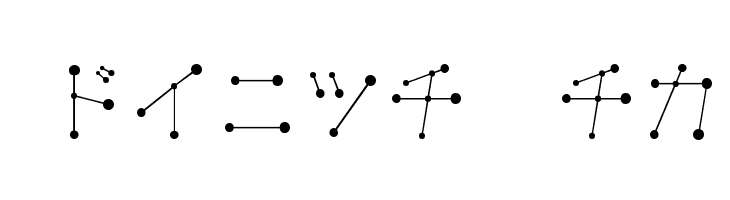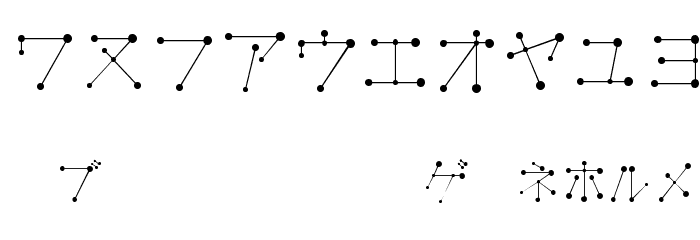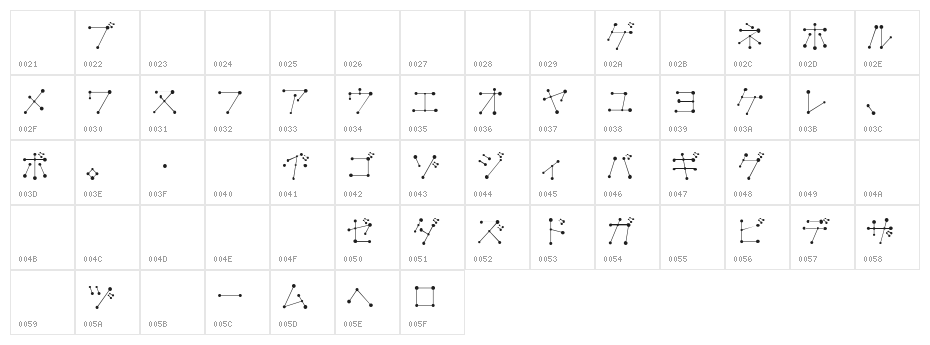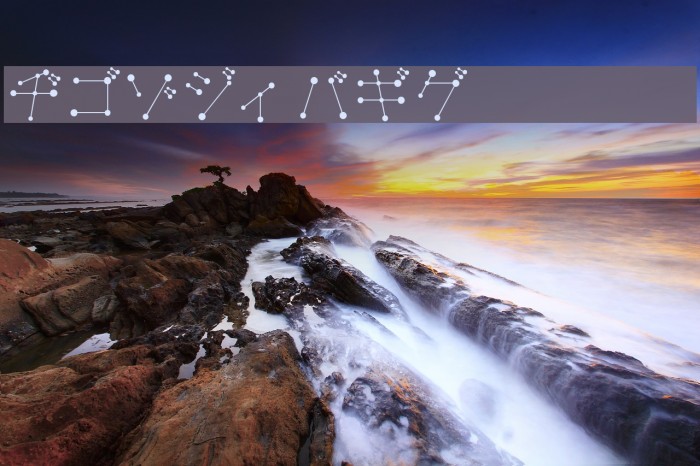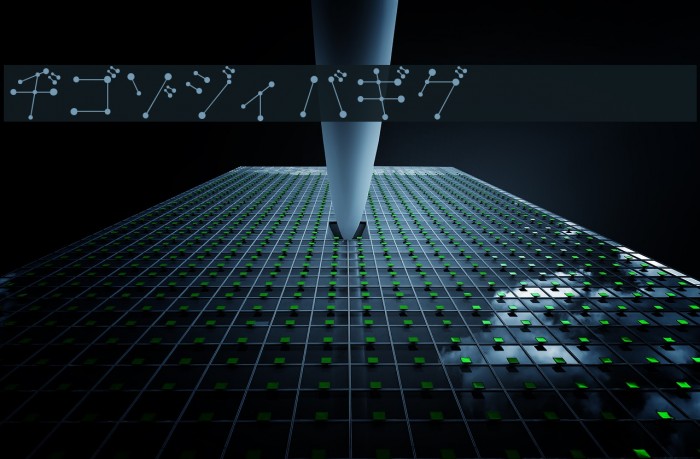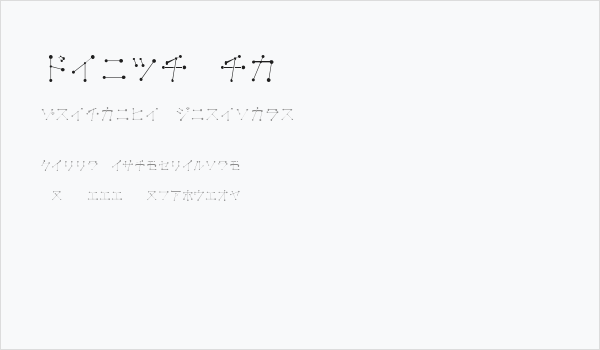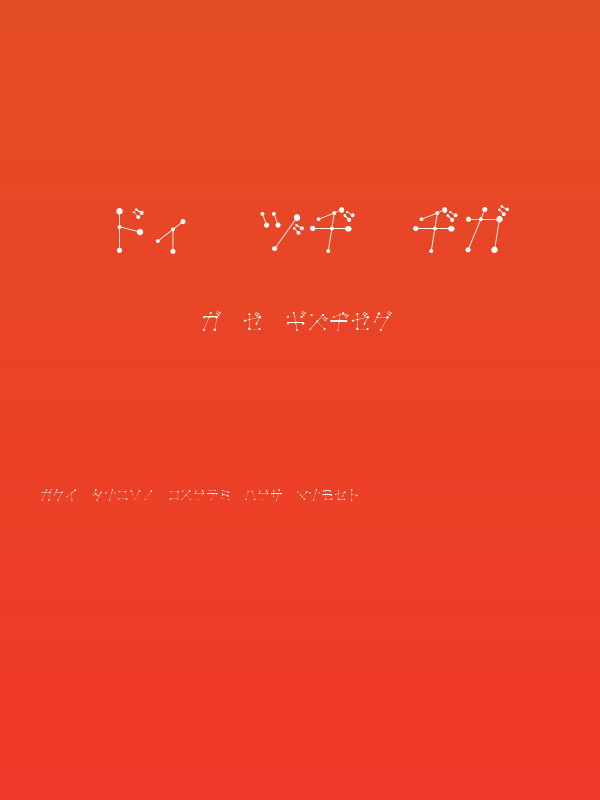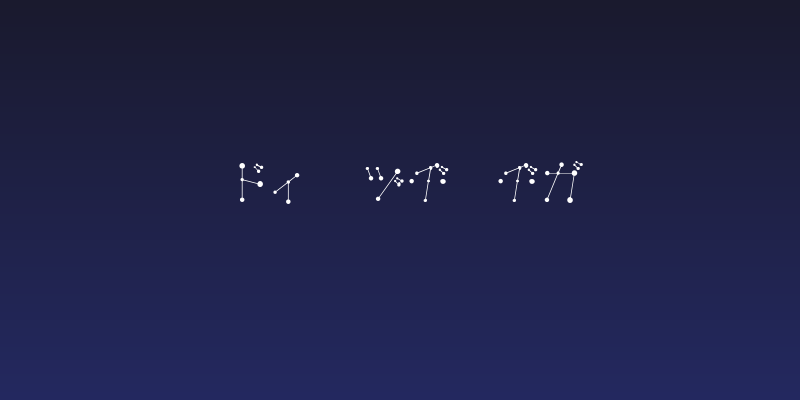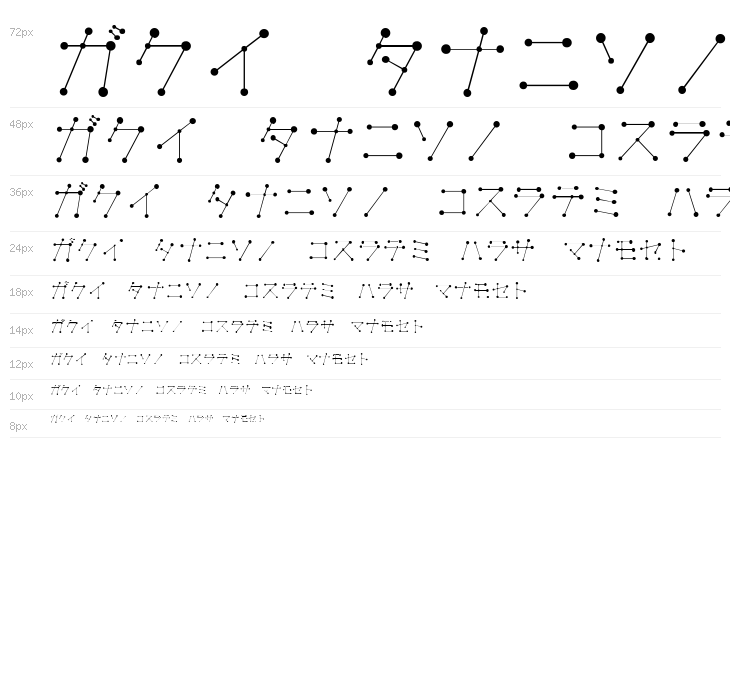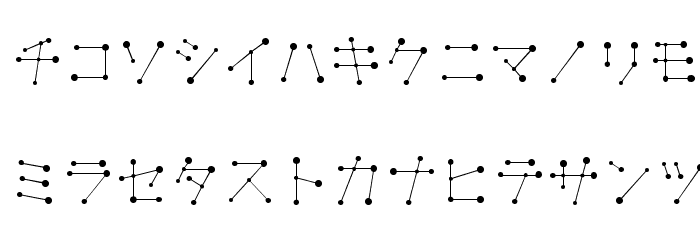
SeizaKat Font
SeizaKat Description
This font is a creative and unique design that mimics the appearance of constellations. Each character is formed by connecting dots with lines, resembling star patterns in the night sky. The style is highly decorative and artistic, making it stand out for its imaginative approach. The characters are evenly spaced, with a consistent pattern of dots and lines that create a cohesive look. This font is not suitable for body text due to its intricate design but is perfect for artistic projects where a celestial or cosmic theme is desired.
| Proposed Projects | Ideal for projects with a cosmic theme, such as astronomy posters, science fiction book covers, or themed event invitations. |